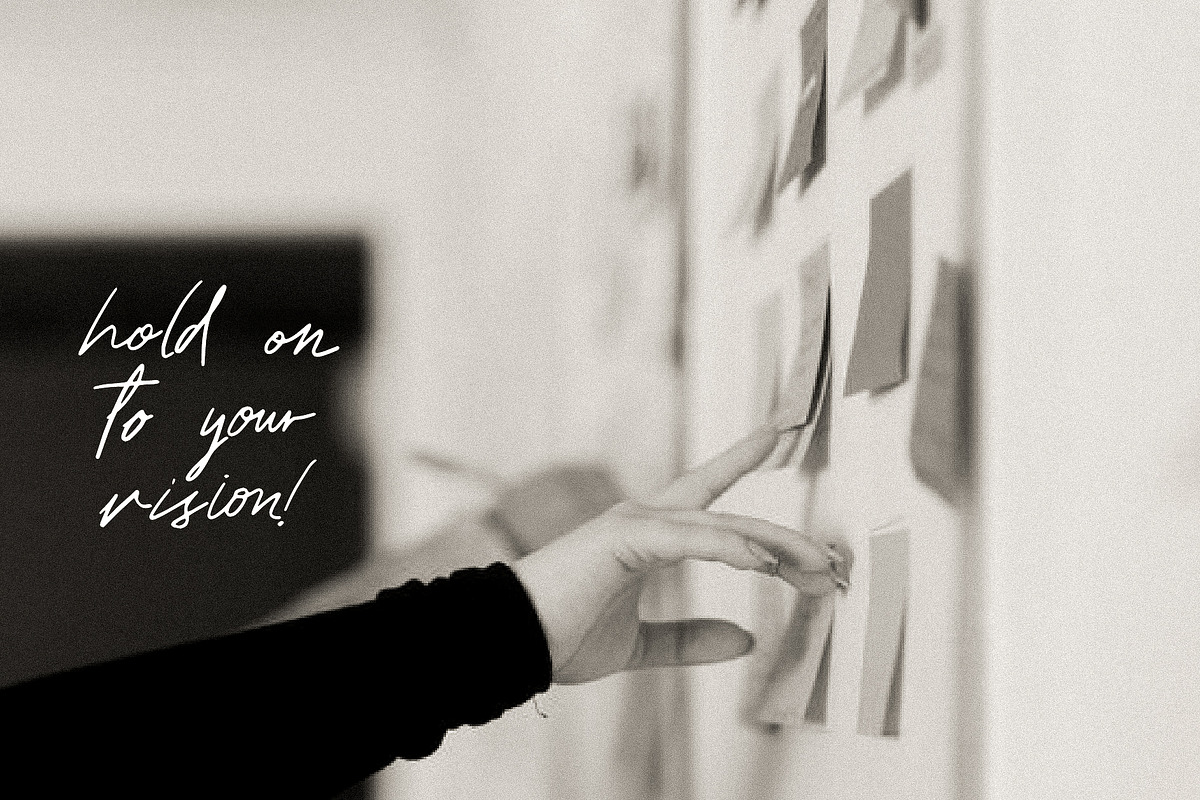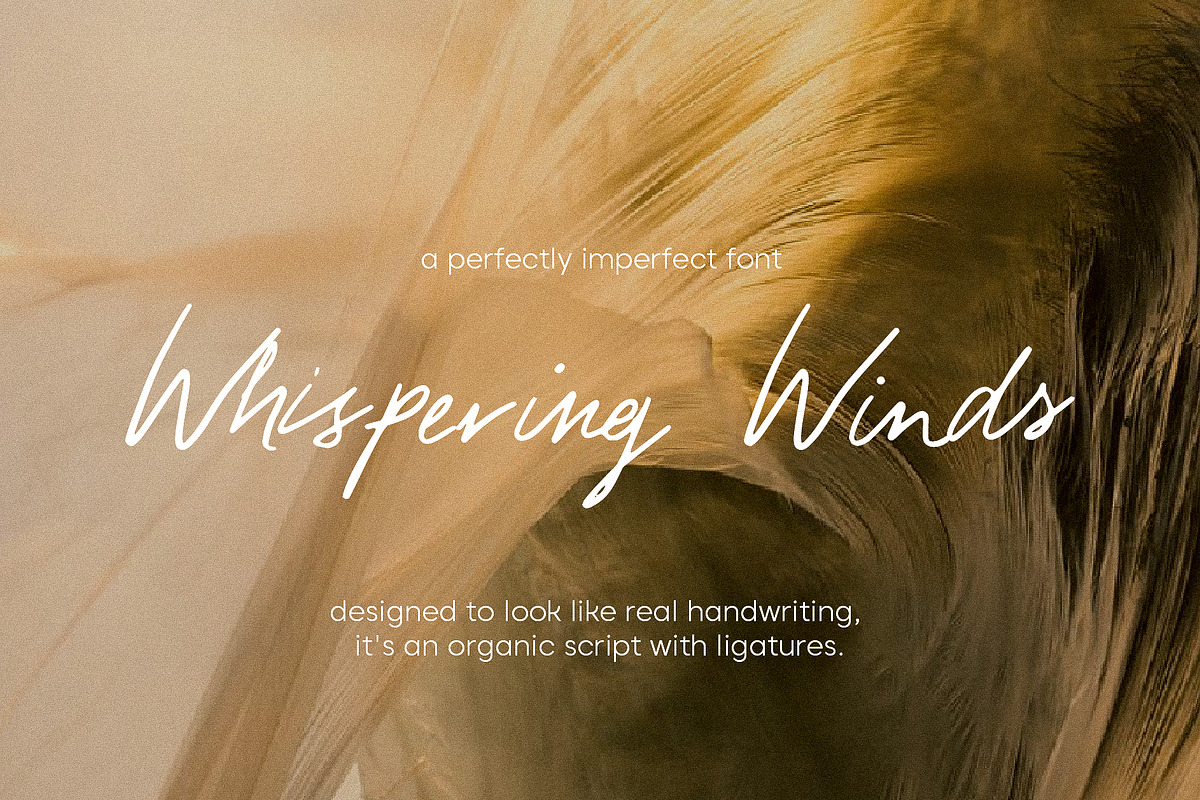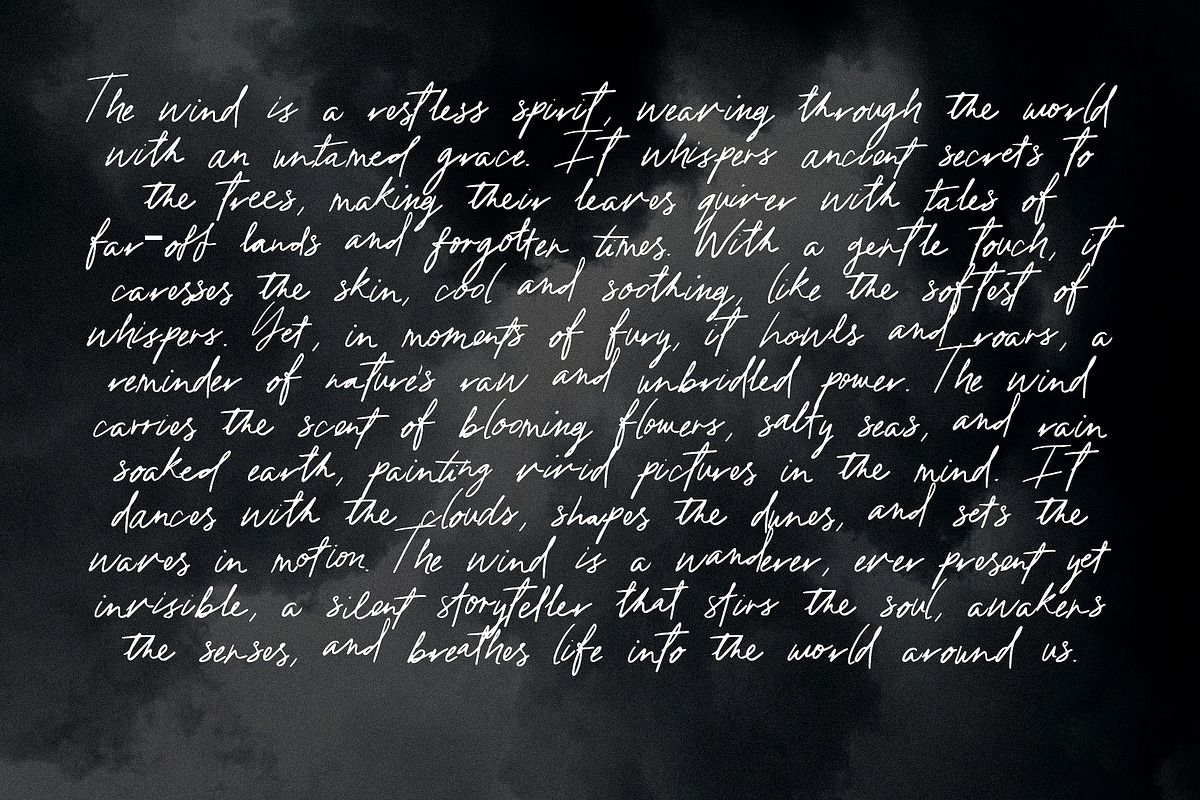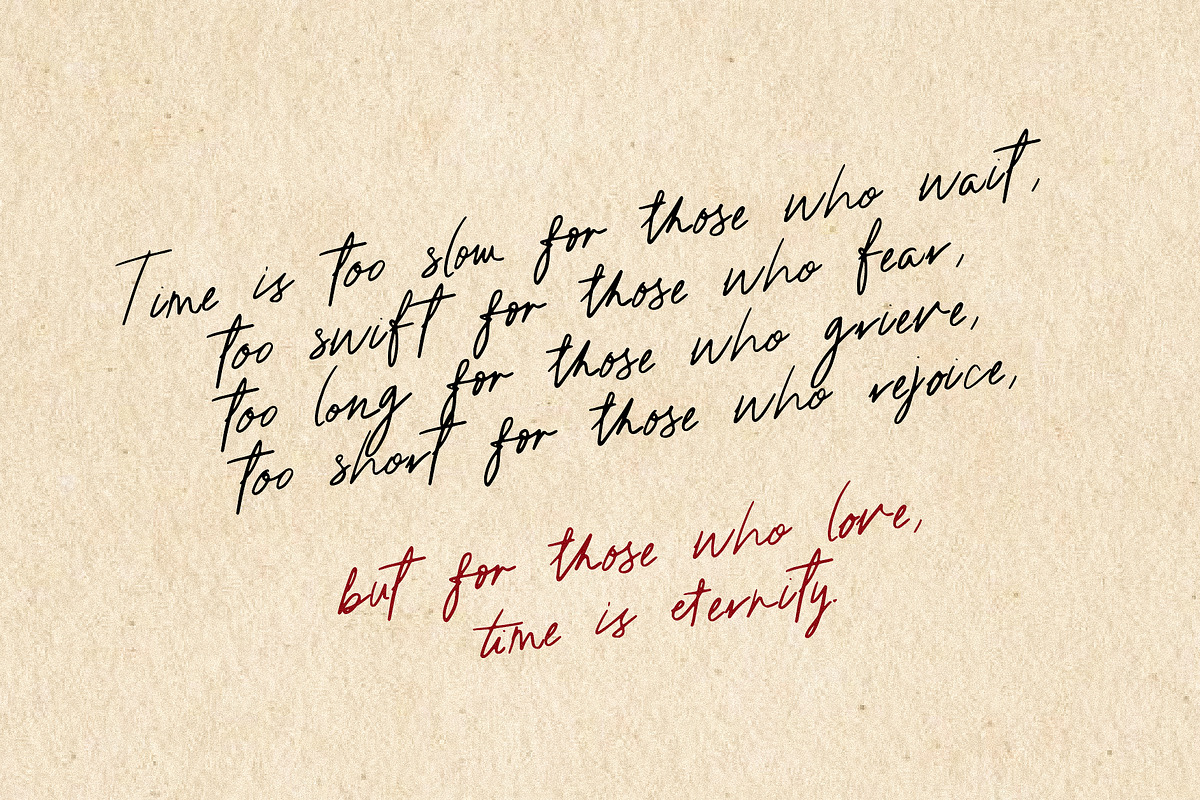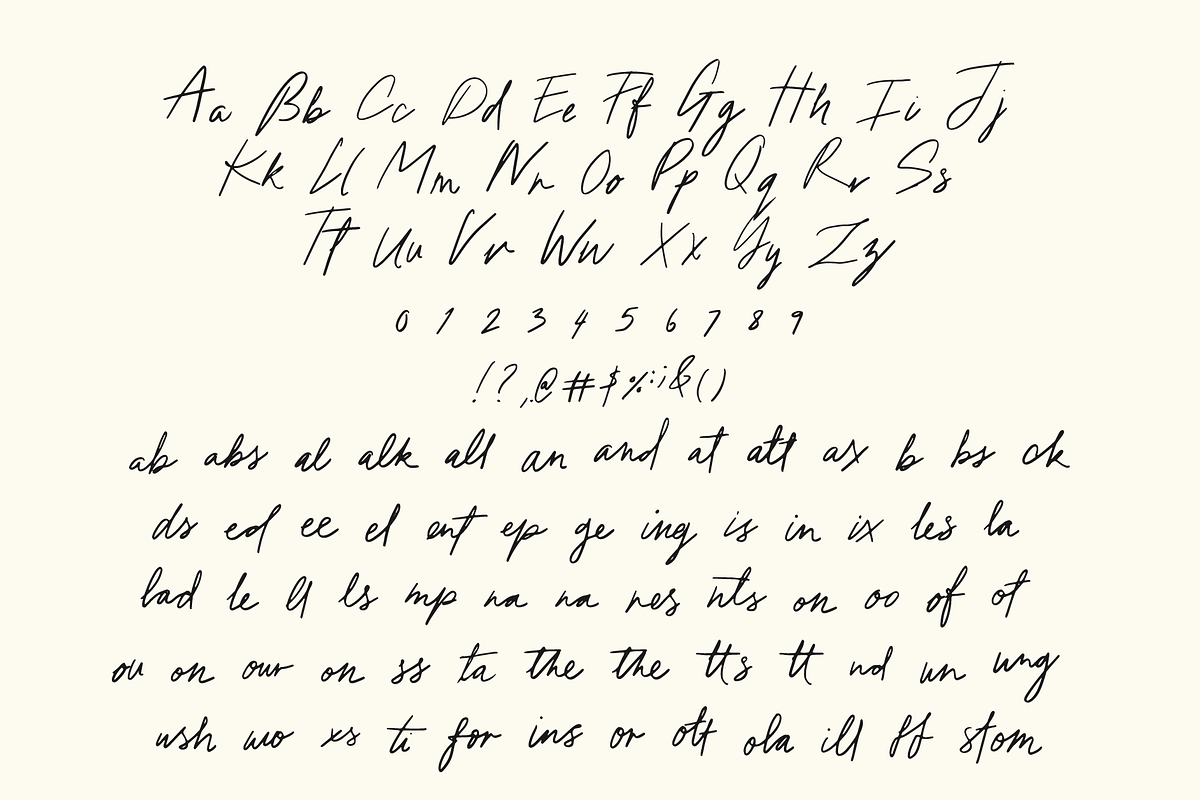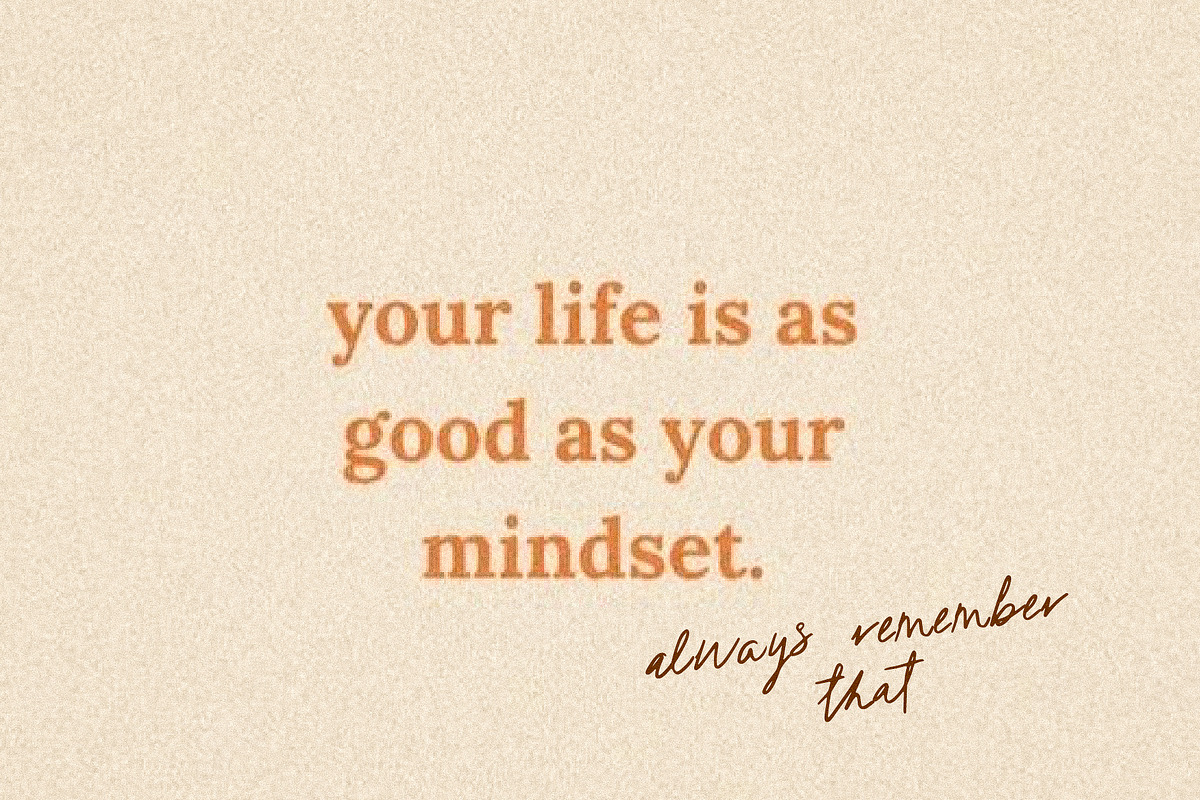
Whispering Winds Handwritten Font
Whispering Winds is a perfectly imperfect font designed to look like real handwriting. This organic script with a textured feel is perfect for greeting cards, wedding stationery, logos, modern websites, apparel design, and more.
Set of standard alphabet and punctuation Handwritten ligatures